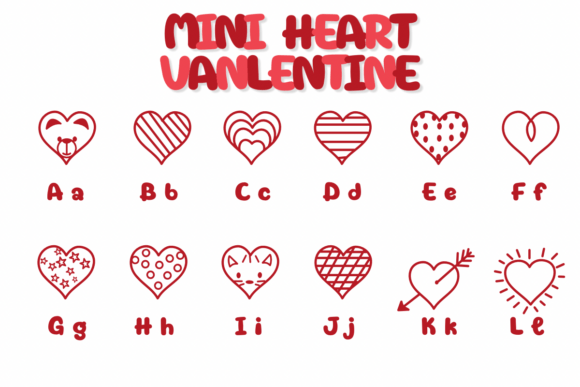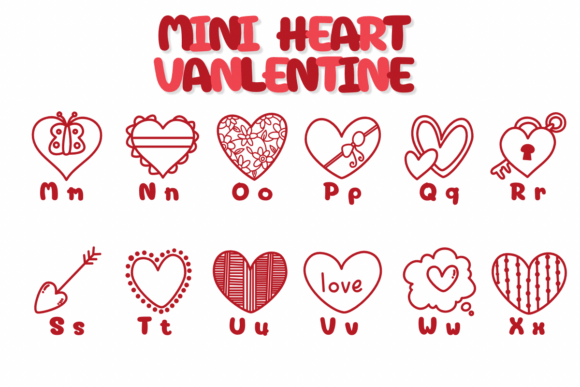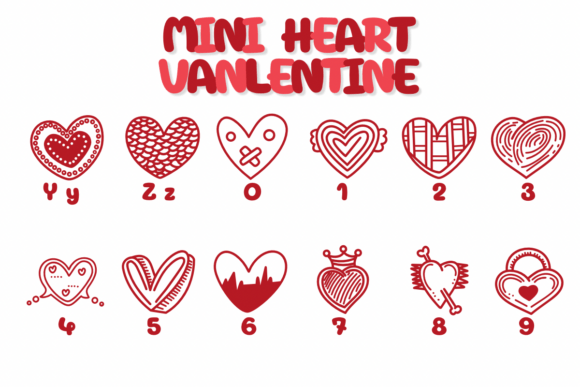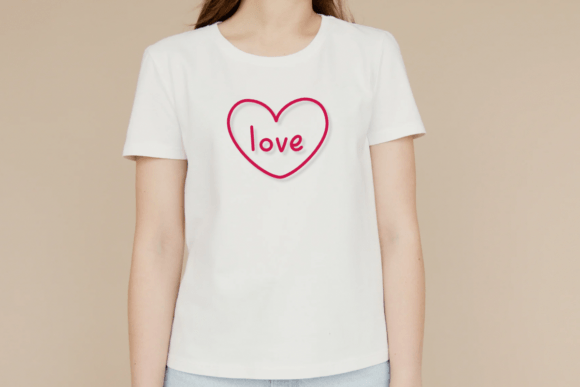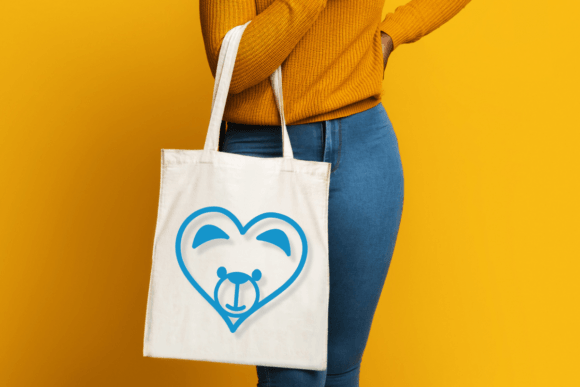
Introduction to Mini Heart Valentine Font Font
Fonts play a crucial role in design, and the Mini Heart Valentine Font font is a typeface that brings both character and versatility to any project. Whether you’re working on a branding project, a website, or a print design, the Mini Heart Valentine Font font offers a unique style that can elevate your work.
Mini Heart Valentine is a dingbats font with a romantic theme.
This font can enhance your creative projects such as wedding invitations, DIY, crafts, decorations, logos, and many other creative ideas .
Key Features of Mini Heart Valentine Font Font
Why Choose Mini Heart Valentine Font Font?
The Mini Heart Valentine Font font is more than just a typeface – it’s a design tool that helps you communicate your message with style and clarity. Its unique character set and versatile design make it suitable for a wide range of applications, from elegant invitations to bold headlines.
With its carefully crafted letterforms and balanced proportions, the Mini Heart Valentine Font font ensures readability and visual appeal across all mediums.
What makes Mini Heart Valentine Font font special?
The Mini Heart Valentine Font font stands out with its unique design, exceptional readability, and versatility across various design applications.